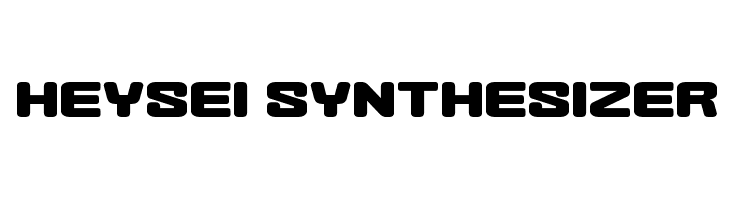
• Heysei Synthesizer schriftart
A bold, futuristic font with rounded edges and a geometric structure.
• HeySunset-BrushFontMedium schriftart
A bold and expressive brush font with a hand-painted, artistic style.
• heySweety schriftart
A playful, cursive script font with a whimsical, handwritten style.
• Heytext schriftart
A pixelated, blocky font with a retro digital aesthetic.
• Heywolf schriftart
A bold, expressive script font with a handwritten style.
• Heywolf Italic schriftart
A bold, flowing script font with elegant cursive letterforms.
A modern, flowing cursive font with bold, connected characters.
• HFBonBon schriftart
A bold, playful font with rounded, bubbly characters ideal for fun and cheerful designs.